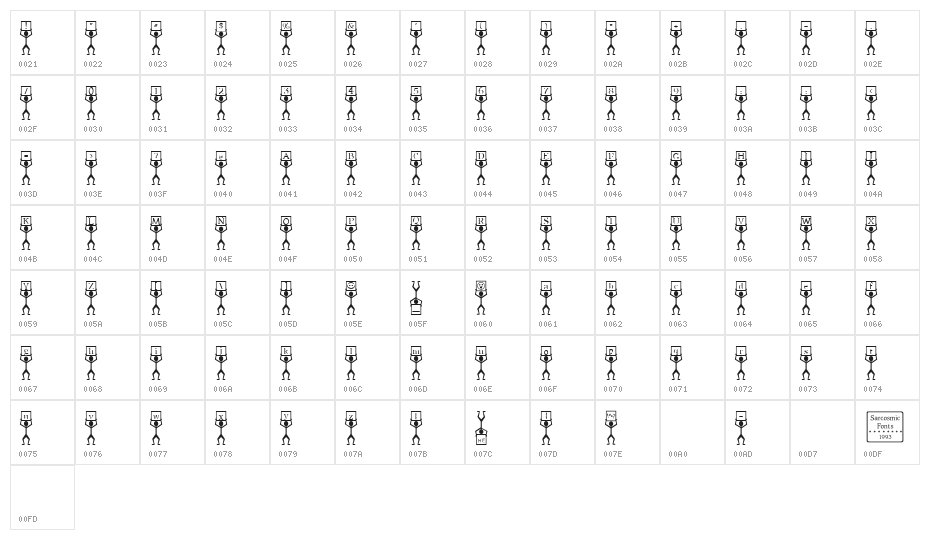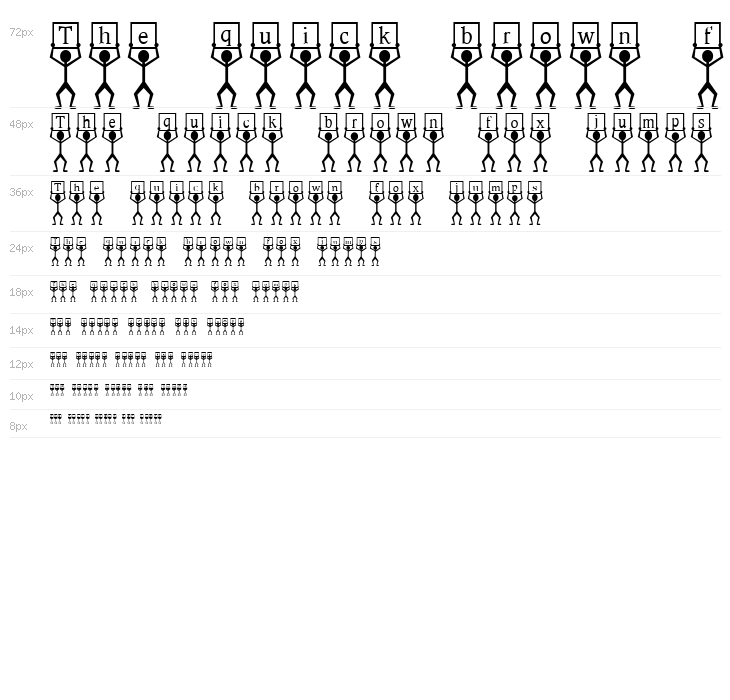
CueCard Font
| Stile generale | Whimsical |
| Caso d'uso | Headlines, Posters, Creative Projects |
| Progetti proposti | Ideal for children's books, playful branding, educational materials, and creative posters. |